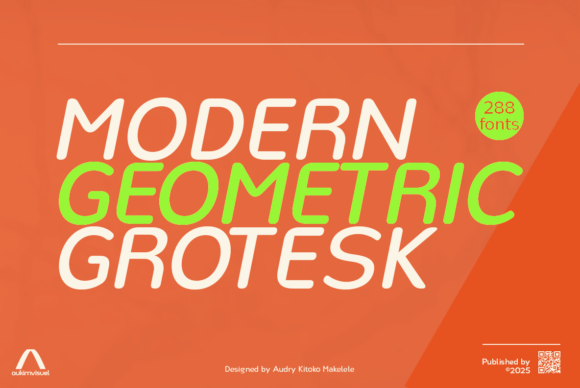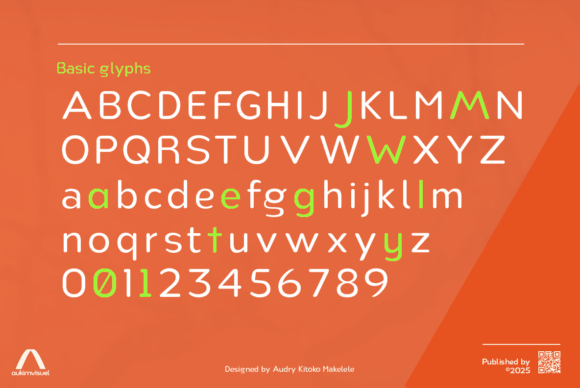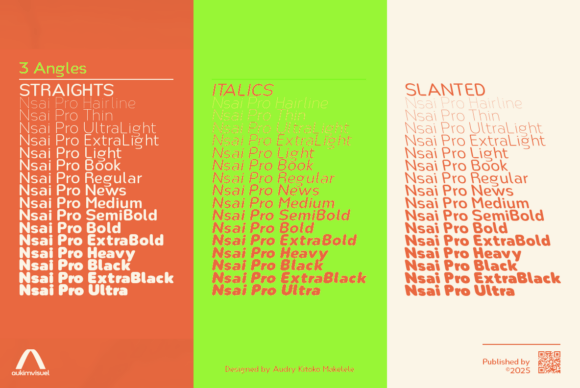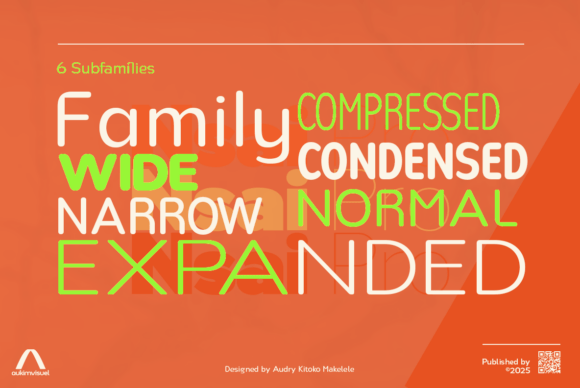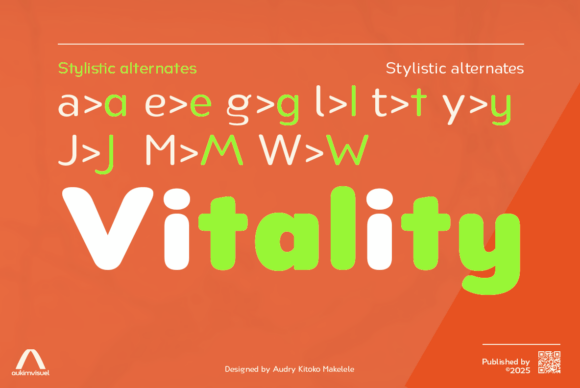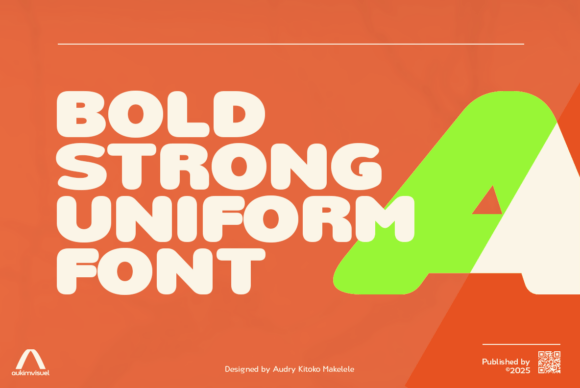
Introduction to Nsai Pro Rounded Narrow Font
Nsai Pro Rounded embodies the culmination of an ambitious typographic vision: combining visual elegance, technical performance, and linguistic openness within a single font family.
With its rounded terminals, this variation adds a warmer, more accessible touch while retaining the rigor and precision of Nsai Pro Each curve is softened and each detail is carefully calibrated to ensure both legibility and graphic presence, whether in an editorial, digital, or branding environment.
Key Features of Nsai Pro Rounded Narrow Font